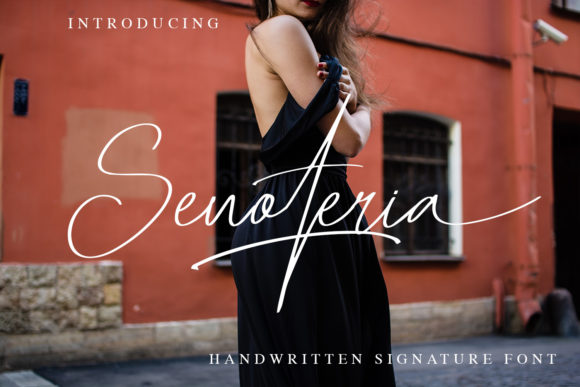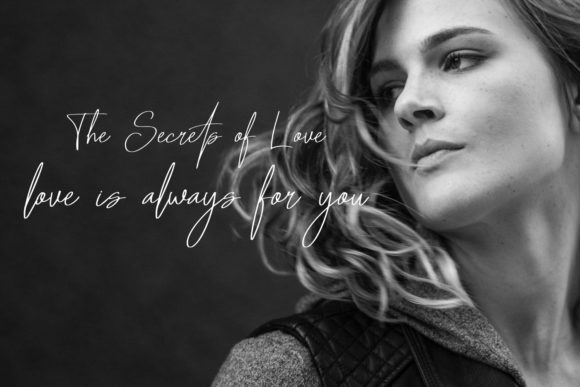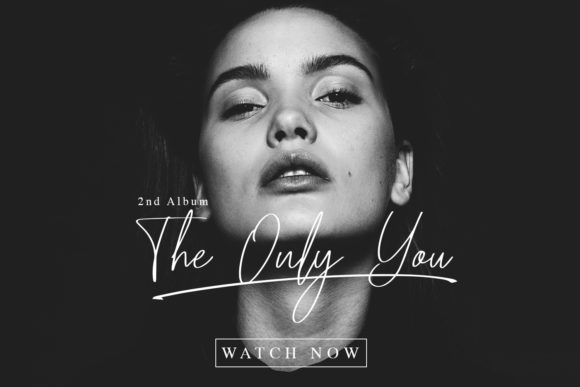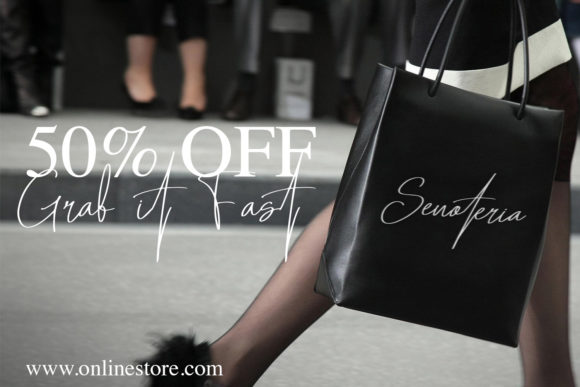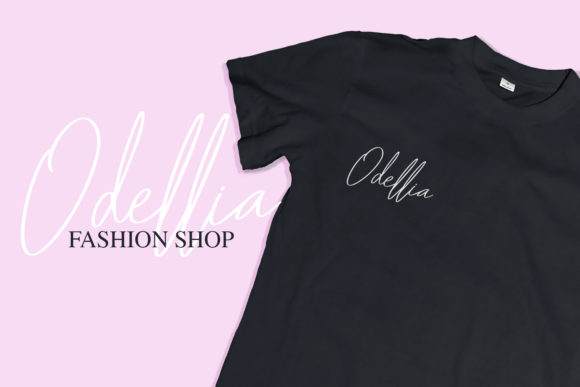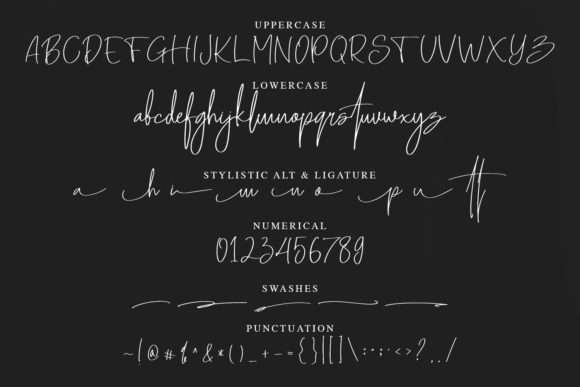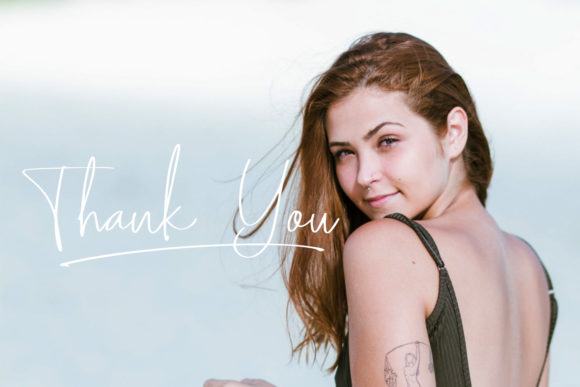
HomeScript FontsSenoteria Font Script Fonts Senoteria Font FacebookTwitterPinterestWhatsApp Senoteria Font Poster 2 Senoteria Font Poster 3 Senoteria Font Poster 4 Senoteria Font Poster 5 Senoteria Font Poster 6 Senoteria Font Poster 7 About Senoteria Font Senoteria is an elegant script font full of charm. Get inspired by its unique energy! DOWNLOAD NOW People also explored Adelishia Script Font Misyela Font Funstuff Dingbat Font Fladeo Font Morganda Font Crouch Font Keenan Font Genniro Font Cainamons Font 149 0 TagsSenoteria Font Previous articleFlorence Duo FontNext articleSelfila Font LEAVE A REPLY Cancel reply Comment: Please enter your comment! Name:* Please enter your name here Email:* You have entered an incorrect email address! Please enter your email address here Website: Save my name, email, and website in this browser for the next time I comment. Personal Use Free Saolice Personal Use Free Read more about this font Setta Personal Use Free Read more about this font Earwig Factory Personal Use Free Read more about this font My Shine Personal Use Free Read more about this font BLOG The 10 Best Handwriting Fonts to Add Personality to Your Designs 10 of the Best Handwriting Fonts for Adding Personality to Your Designs There will undoubtedly be no other better choice than handwriting fonts to give... Where to Buy American Fonts Online in 2024 Best Fonts for YouTube Videos: Make Your Thumbnails Stand Out Best Fonts for T-Shirt Design – Top 2025 Picks